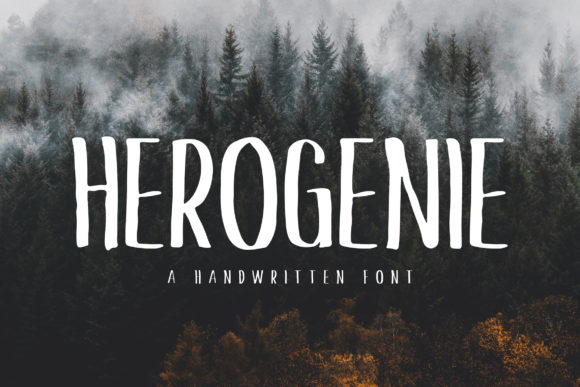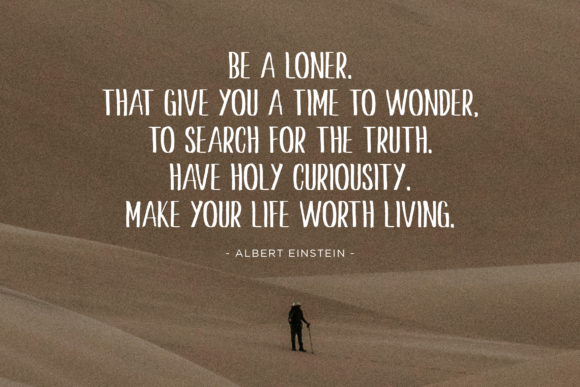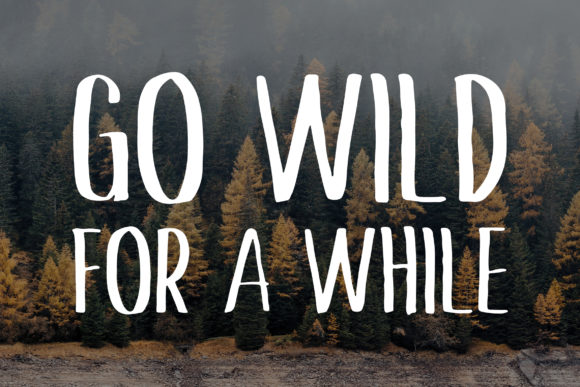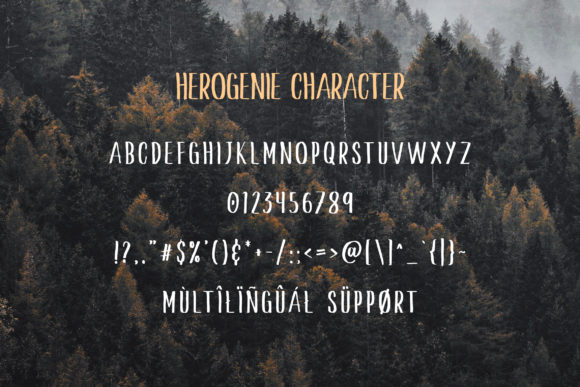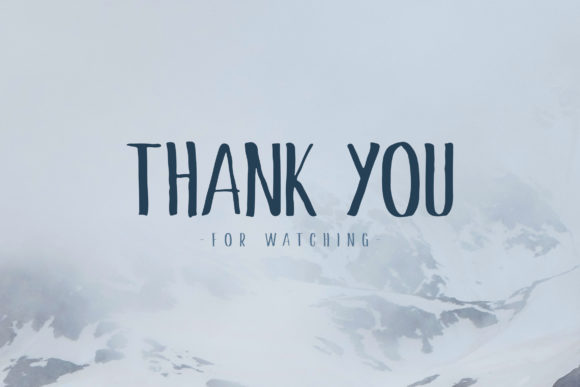
Herogenie Font
About Herogenie Font
Herogenie is a simple and unique handwritten font with a natural feel. It’s perfect for adventure quotes, design, clothes, and many more ideas.